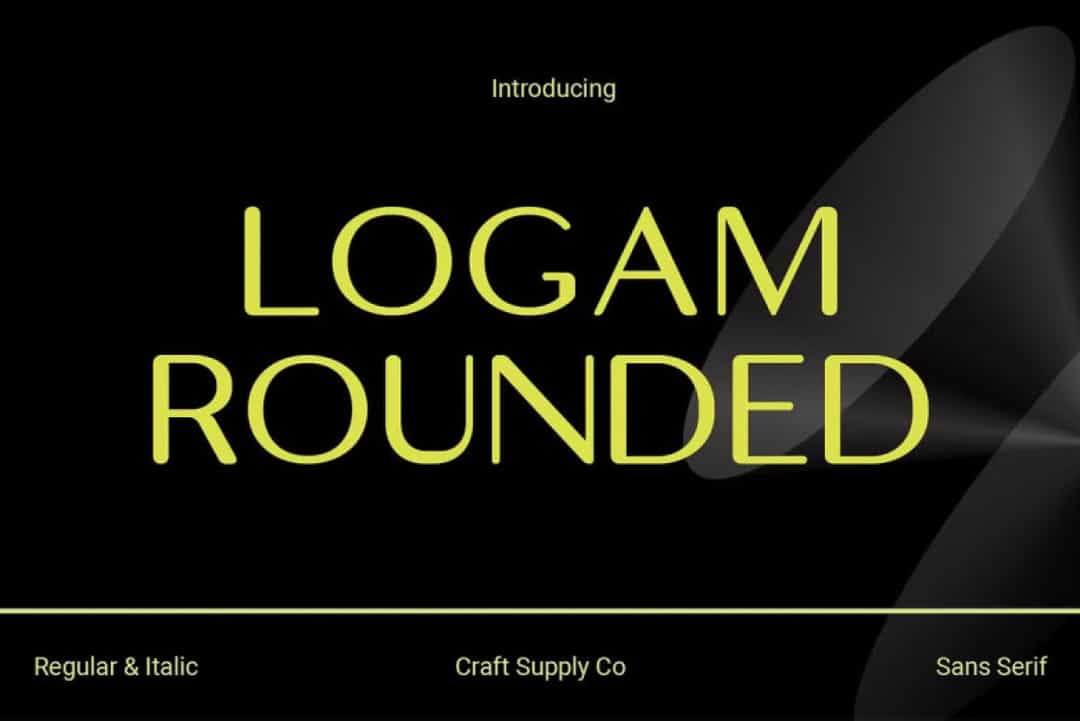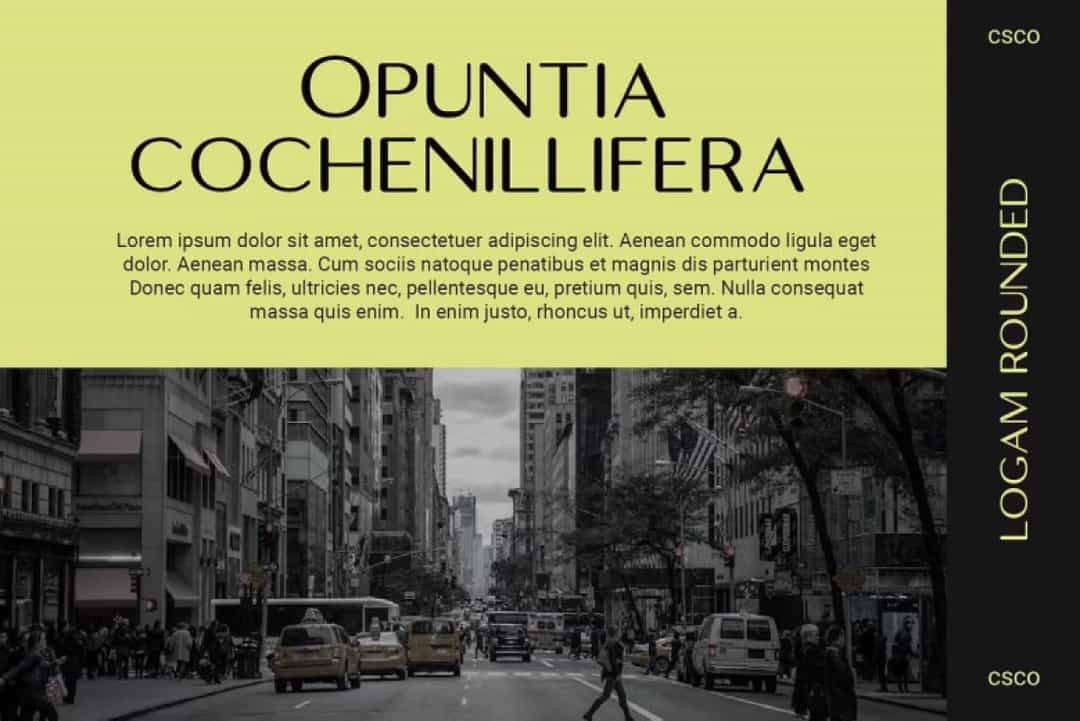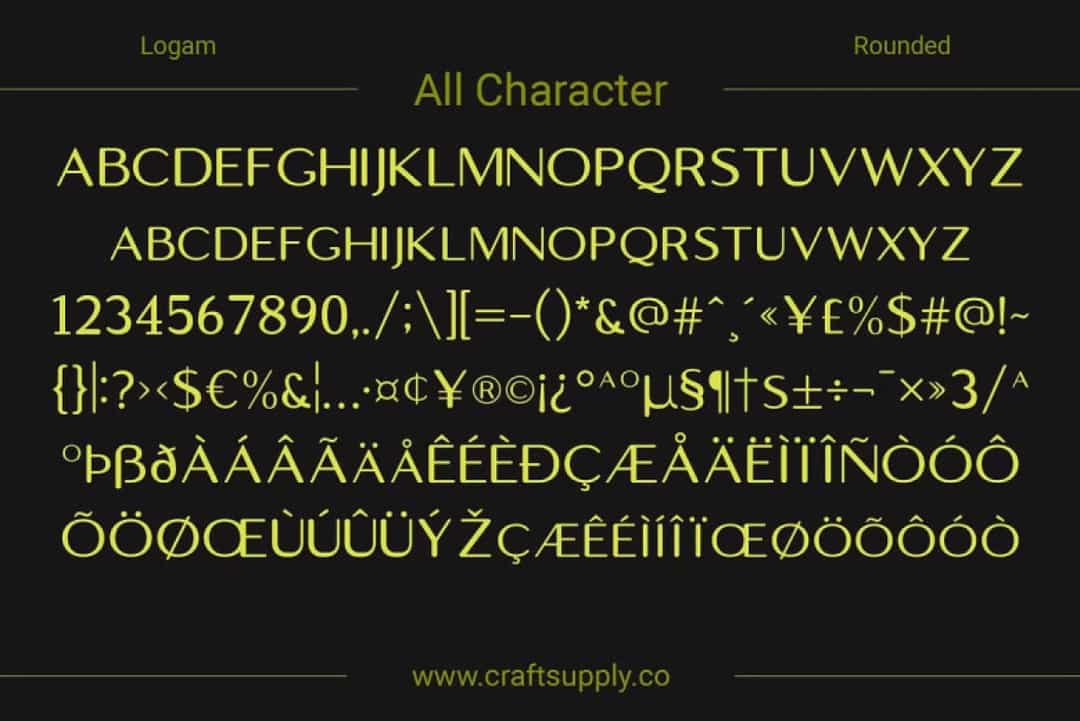
Logam Rounded is a modern sans serif font distinguished by its bright contrast and its distinctive stem terminals that curve roundedly. Modern Elegance This font exudes modern elegance by seamlessly blending its striking contrasts of letters with soft round corners of its terminators letters, producing a visually captivating and stylistically flexible style that is visually attractive as well.